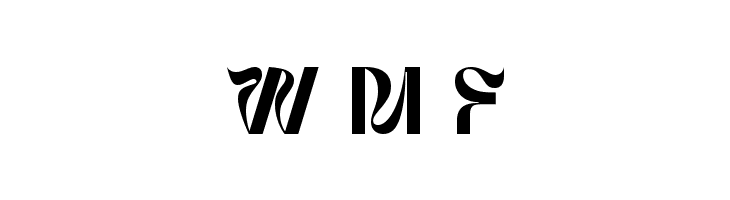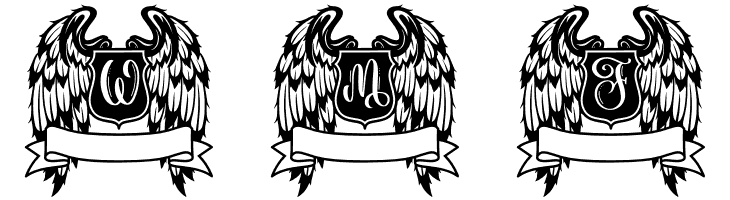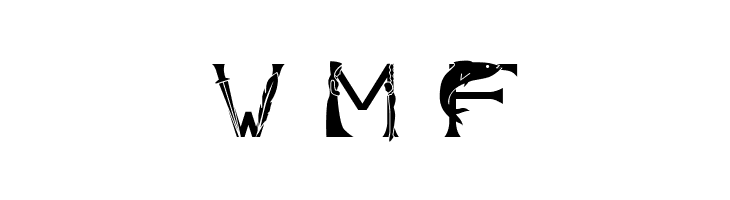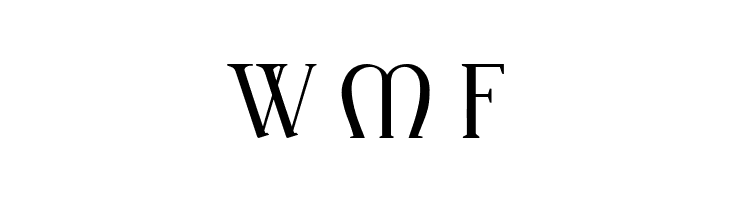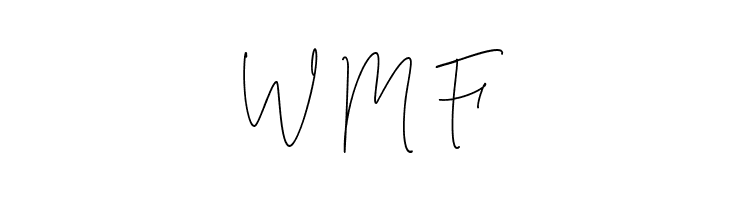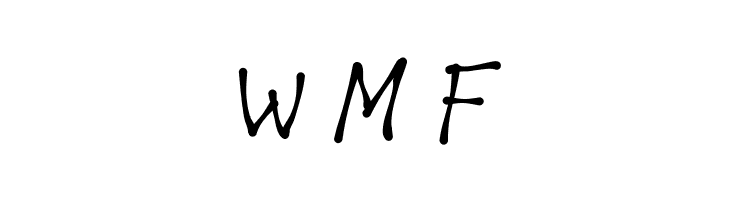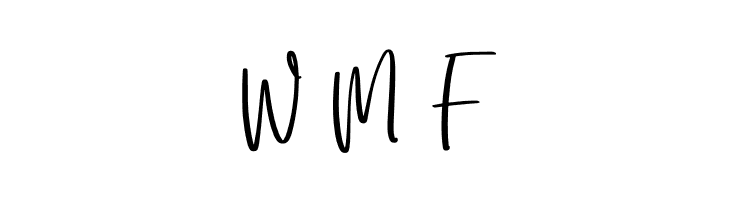
A bold, artistic font with dynamic curves and strong lines.
A bold, geometric font with angular shapes and a modern, digital feel.
A decorative font with ornate, wing-like frames around each character, exuding a gothic or fantasy style.
A decorative and intricate font with fantasy-themed embellishments.
A sophisticated font with elegant curves and sharp edges, blending classic and modern styles.
A delicate, cursive handwritten font with flowing lines and elegant strokes.
A casual, handwritten font with a dynamic and informal style.
A bold, playful font with a retro, groovy aesthetic.
A dynamic, expressive handwritten font with fluid, continuous strokes.
A playful and casual handwritten font with dynamic strokes.